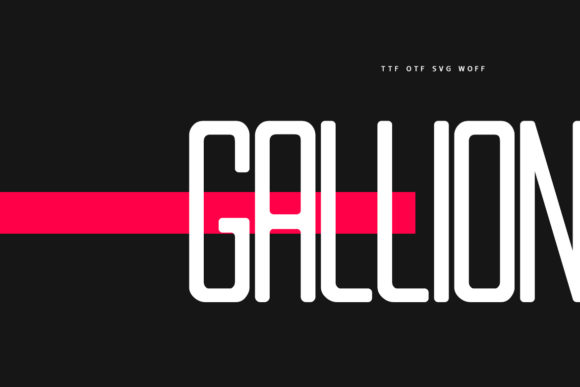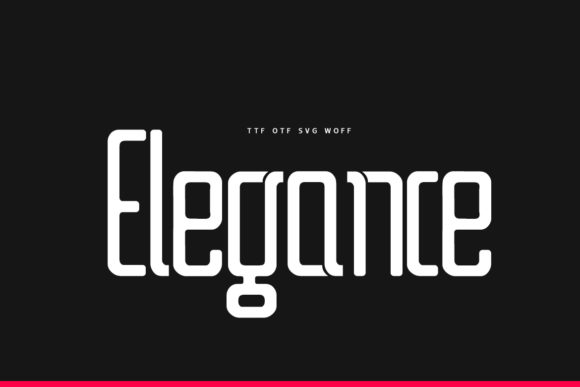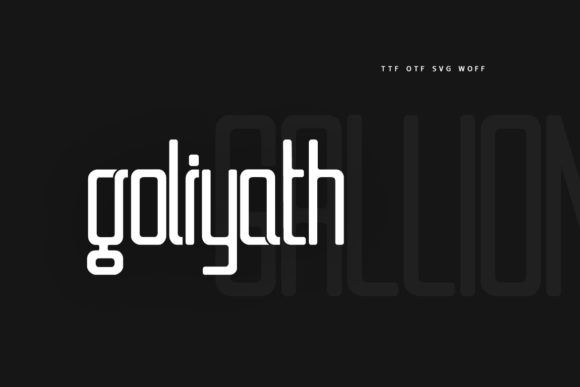
Gallion Font: The Ultimate Modern Display Font for Designers and Crafters
In the world of typography, a good font can make all the difference in creating a lasting impression. For designers and crafters looking for a cool, modern, and simple display font, Gallion Font is an excellent choice. This versatile font is perfect for adding a unique touch to web designs, business cards, and various other creative projects. In this article, we’ll explore the features and benefits of Gallion Font, and why it’s becoming a favorite among designers and crafters.
What is Gallion Font?
Gallion Font is a modern display font that exudes simplicity and elegance. Its clean lines, precise curves, and balanced proportions make it an ideal choice for designers seeking a fresh and contemporary look. The font’s minimalist approach ensures that it can be used in a variety of contexts, from digital designs to print materials.
Key Features of Gallion Font
- Modern and Simple Design: Gallion Font boasts a sleek and modern design that is both visually appealing and easy to read.
- Versatility: This font is perfect for a wide range of creative projects, including web designs, business cards, posters, and more.
- Unique Touch: Gallion Font adds a distinctive touch to any design, setting it apart from more traditional fonts.
- Easy to Read: Despite its modern and simple design, Gallion Font remains highly legible, making it suitable for both digital and print materials.
Benefits of Using Gallion Font
So, why should designers and crafters choose Gallion Font for their projects? Here are just a few benefits:
- Enhance Your Brand’s Visual Identity: With Gallion Font, you can create a unique and memorable visual identity for your brand that sets you apart from the competition.
- Elevate Your Designs: This font is perfect for adding a touch of sophistication and elegance to your designs, making them more engaging and effective.
- Save Time and Effort: Gallion Font is easy to use and works seamlessly across various design platforms, saving you time and effort.
Who Can Benefit from Gallion Font?
Gallion Font is an excellent choice for a wide range of designers and crafters, including:
- Graphic Designers: Looking for a modern and simple display font to enhance their visual creations.
- Web Designers: Seeking a font that works well in digital formats and adds a unique touch to their web designs.
- Crafters: Creating handmade products, such as cards, invitations, and other paper crafts.
- Marketing and Advertising Professionals: Needing a font that can help create eye-catching and memorable campaigns.
How to Use Gallion Font
In conclusion, Gallion Font is an excellent choice for designers and crafters looking for a modern, simple, and versatile display font. Its unique touch, ease of use, and wide range of applications make it an ideal choice for various creative projects. Whether you’re a graphic designer, web designer, crafter, or marketing professional, Gallion Font is sure to elevate your designs and help you create a lasting impression.